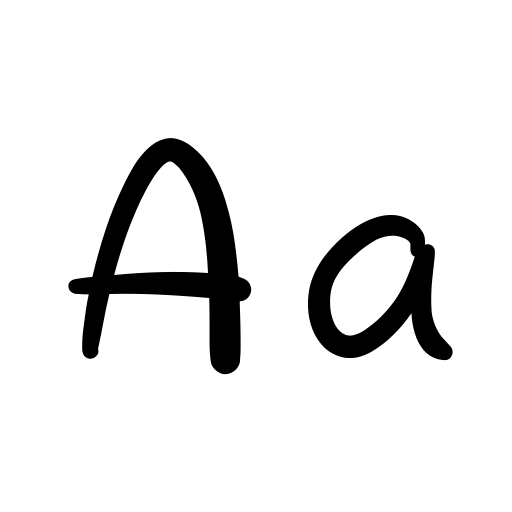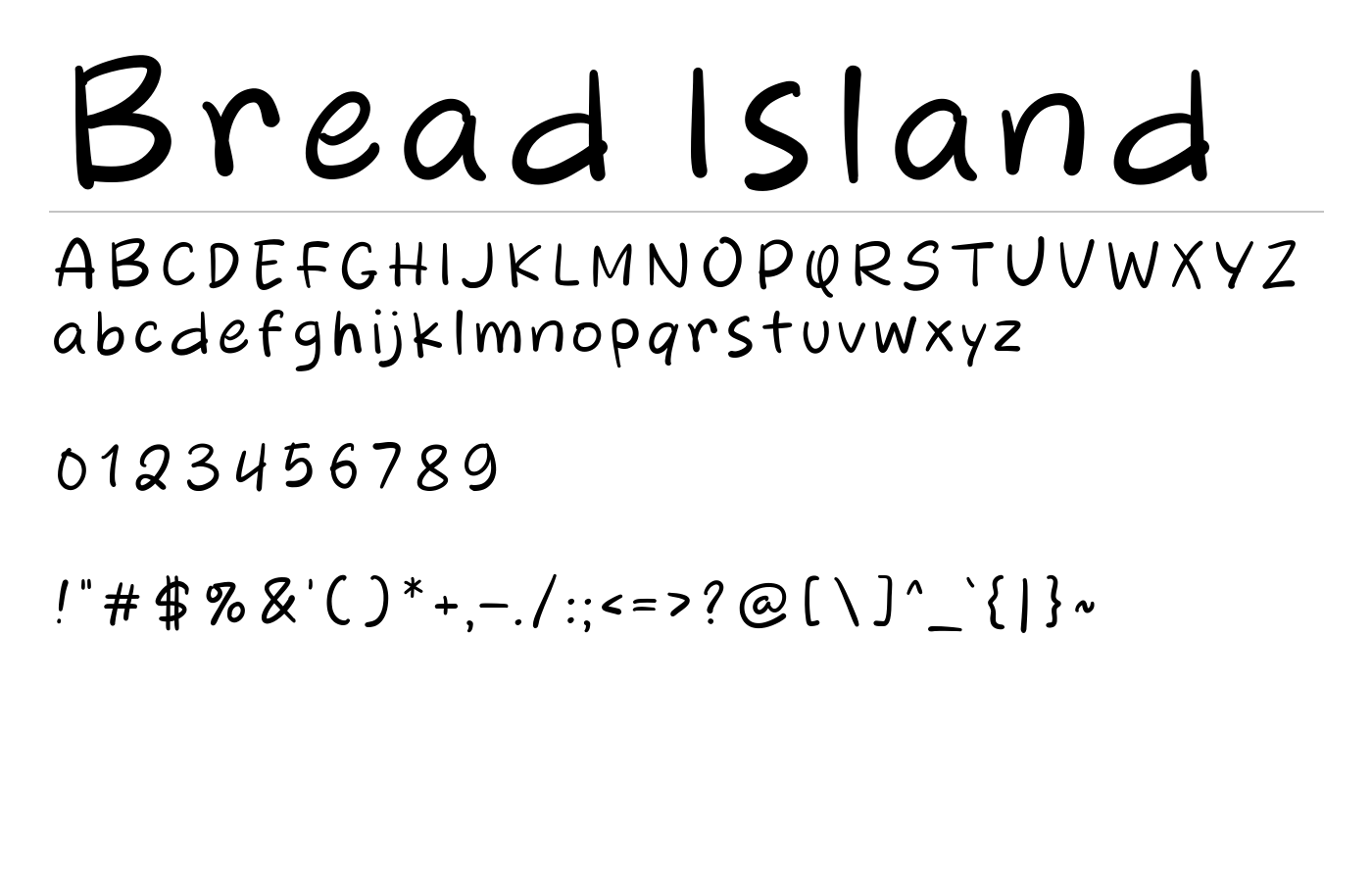
Bread Island is a playful and casual handwritten sans serif font with a friendly, approachable vibe. Its irregular strokes and simple letterforms give it an informal, organic feel, making it perfect for projects that want to convey warmth, creativity, and personality. This font works well for children’s books, personal branding, invitations, and any design seeking a relaxed and cheerful tone.
Bread Island Font
About Bread Island Font